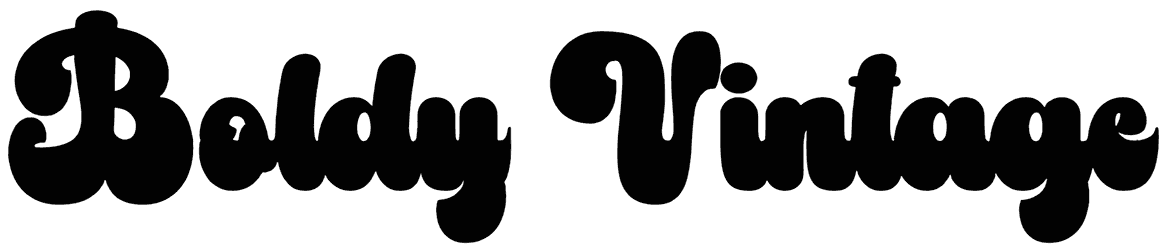
Boldy Vintage Font
If you are really looking for a beautiful groovy font, then we offer you to have Boldy Vintage on your radar and try it on book covers, magazines, educational brochures, flyers, and logos.
It is an undeniable fact that it doesn’t support numbers but its shape exactly looks like musical notes, so you can share a sense of art, drama, momentum, and playfulness with the help of this typeface.
Boldy Vintage is a bold, fun, and modern font. Every hand-drawn stroke and curve will delight and add brightness, modernity, and fun to wherever it’s placed. This bubble font is the best to maximize the amount of street vibe and playfulness. Ideal to create amazing headings, logos, menus, and social media graphics.What’s Included: